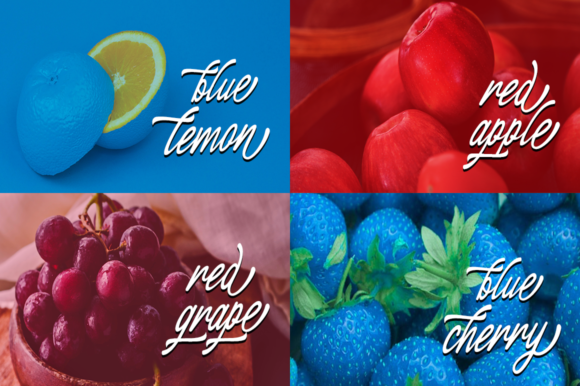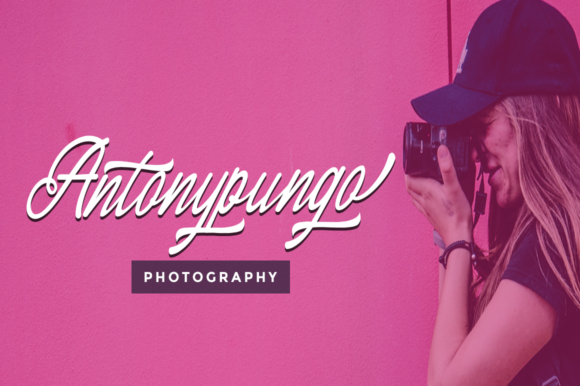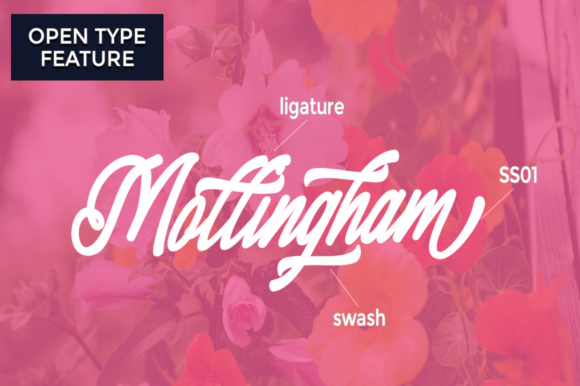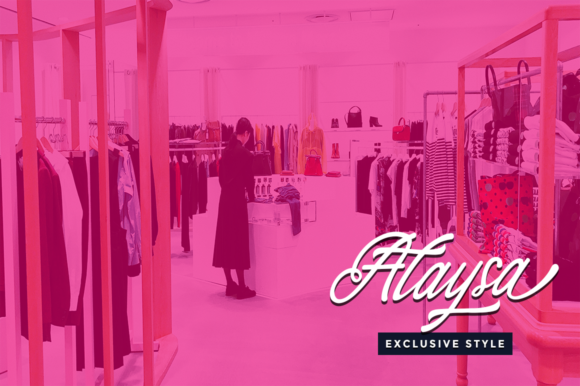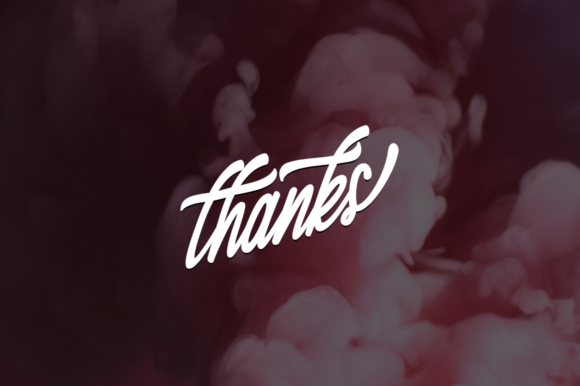
Alaysa Font
About Alaysa Font
Alaysa is retro handwritten font with a bold and clean feel. It will turn any design project into an authentic stand out.